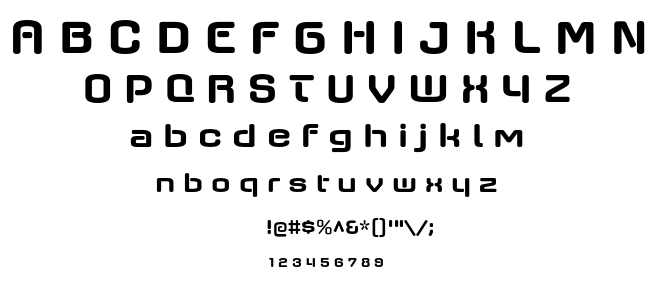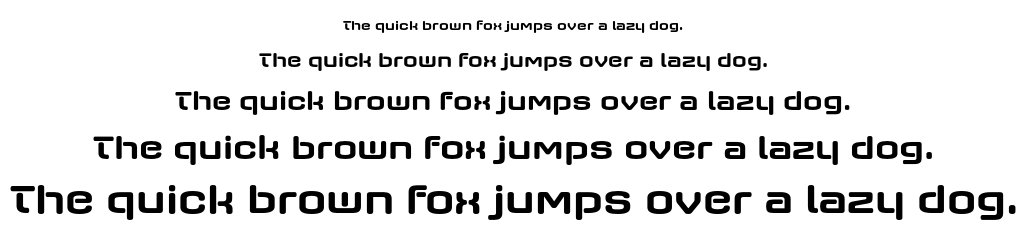
Like an other-worldly neon, Axaxax’s laser curves convey an urban, futuristic or alien motif . . . or all three. Don’t forget to read the files inside the zip for details. Updated in 2012.